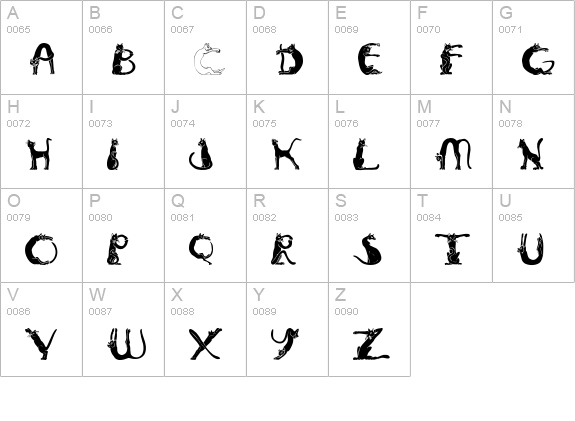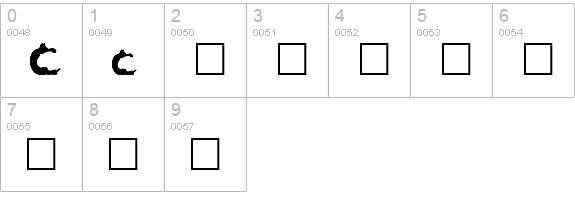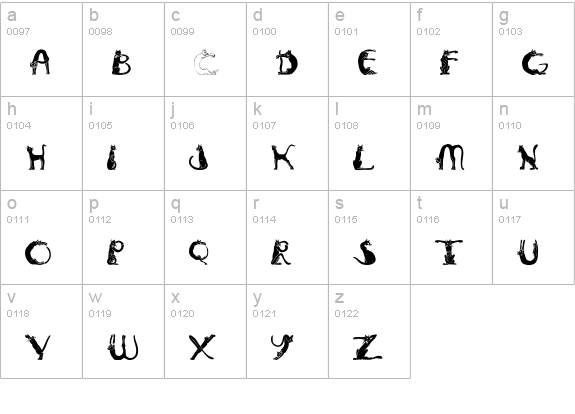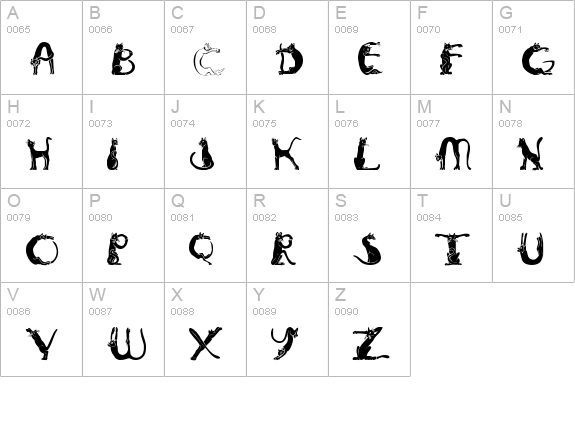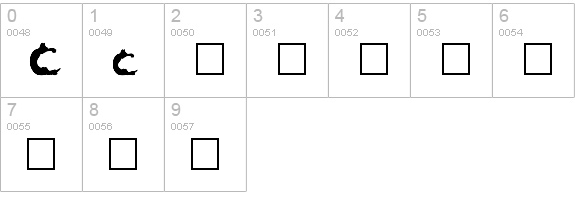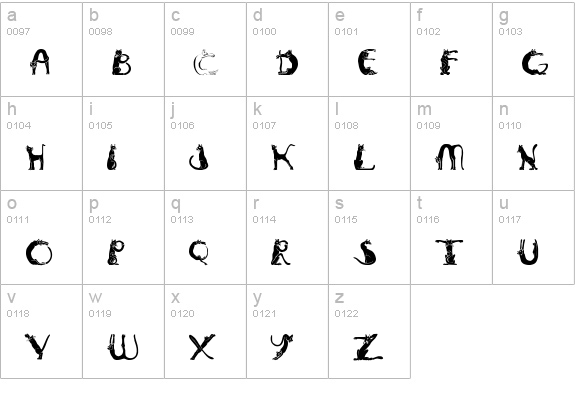
PussyfootA Font Details
PussyfootA font is a whimsical and playful typeface that is sure to add a touch of charm to any design project. With its quirky curves and unique letterforms, PussyfootA is perfect for creating eye-catching headlines, logos, and more. This font exudes a sense of lightheartedness and creativity, making it an excellent choice for projects that require a fun and friendly vibe. Best of all, PussyfootA font is completely free to download at FontsMarket.com. Whether you're a designer looking to add a bit of whimsy to your work or just someone who loves experimenting with different fonts, PussyfootA is a fantastic choice that won't cost you a penny. Download it today and let your creativity run wild with this delightful and charming typeface.